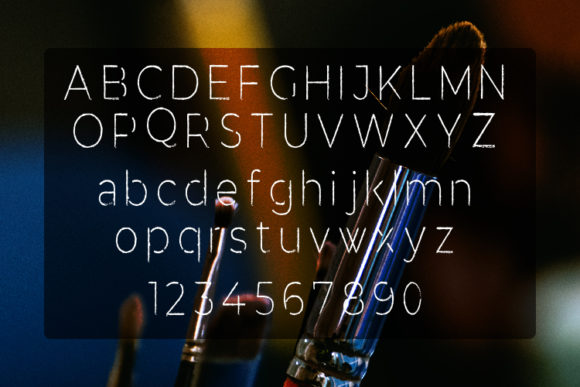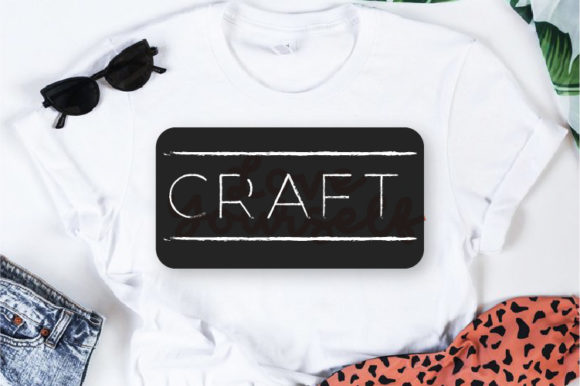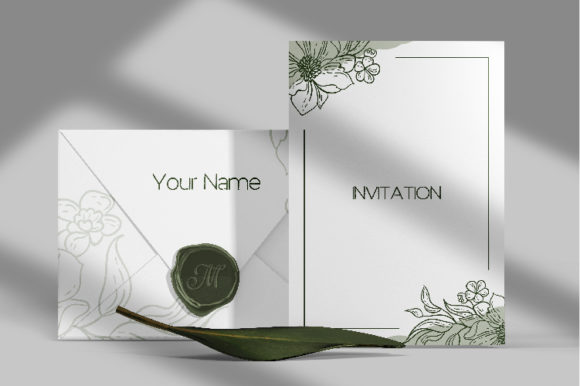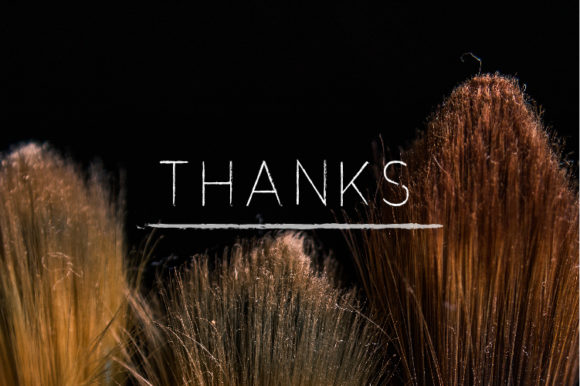
Introduction to Panic Brush Font
You’ve finally landed on the perfect concept for your next creative project, but something’s missing. The text just doesn’t pop. You’ve tried multiple fonts, but nothing seems to capture the essence of your design. That’s when you stumble upon a game-changer – the Panic Brush Font.
This modern sans serif font is a masterpiece in disguise. Its brush-style design brings an air of authenticity to any design, making it perfect for designers who crave high-quality, realistic typography. The Panic Brush Font is a valuable resource for creatives, offering a unique touch that elevates even the most mundane designs.
Panic Brush Font
- Unique, hand-drawn design perfect for creative projects requiring a high-quality, artistic touch.
- Perfect for designers working on projects that require a distressed, watercolor, or hand-painted effect.
Honest Review: Panic Brush Font
What works well with this font is its unique, hand-drawn feel. The brush-like strokes give it a personal, organic look that can add a lot of character to your designs. I’ve used it for everything from social media graphics to print materials, and it’s always been a hit.
Here are some of the features I love about the Panic Brush Font:
- High-quality, detailed design that looks great at any size
However, I do have to mention a few limitations:
- Only available in a limited range of weights and styles
- Not ideal for use in small text or at very large sizes
Overall, I’m really impressed with the Panic Brush Font. While it may not be perfect, its unique design and high-quality feel make it a valuable addition to any designer’s toolkit. ⚠️ Just be aware of its limitations and use it accordingly. ✨
Panic Brush Font
The Panic Brush Font is ideal for:
- Creating custom invitations and event materials.
- Designing social media graphics and advertisements.
- Developing branding materials, such as logos and business cards.